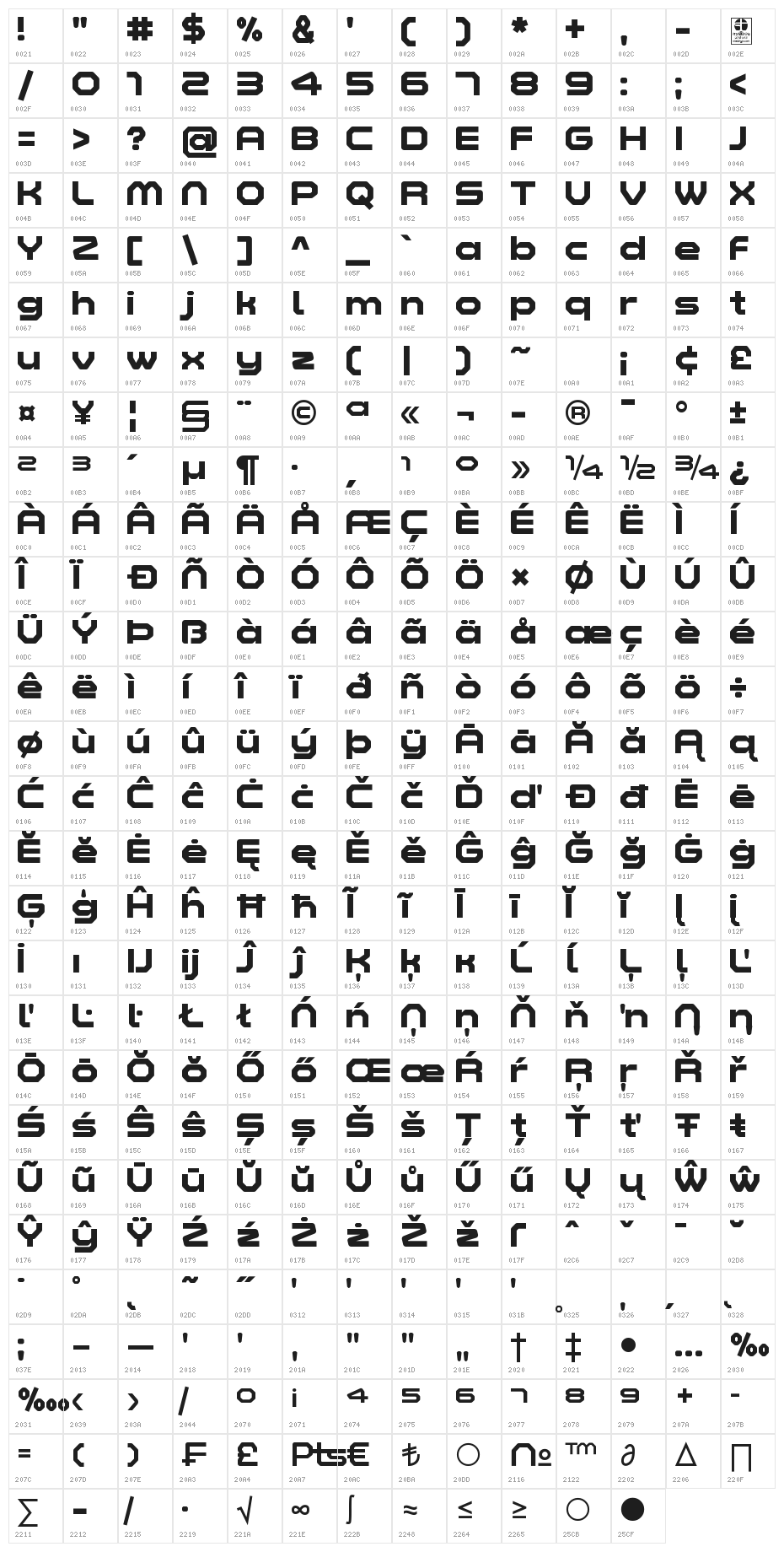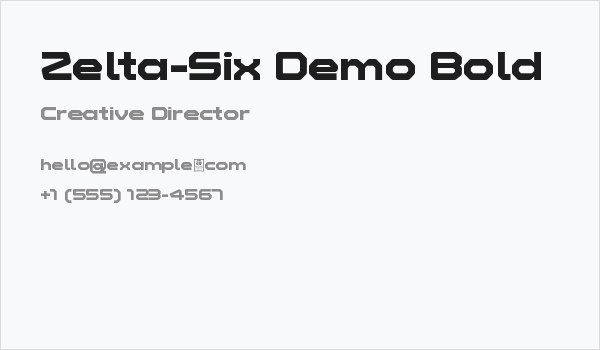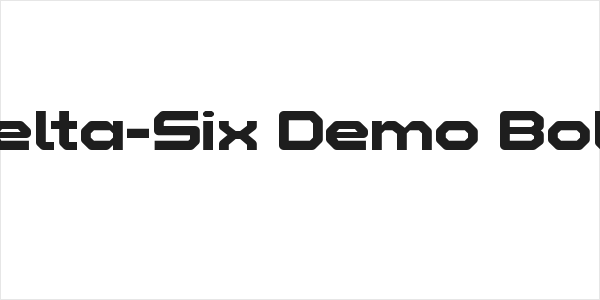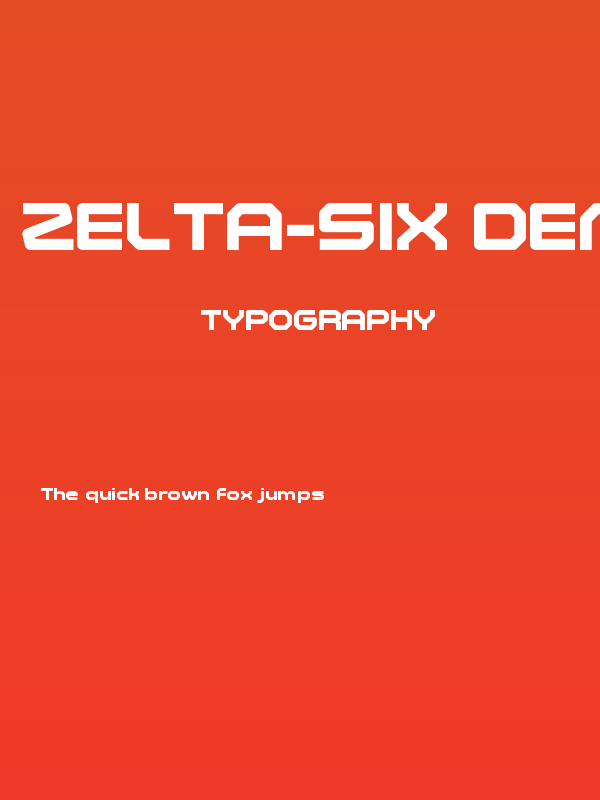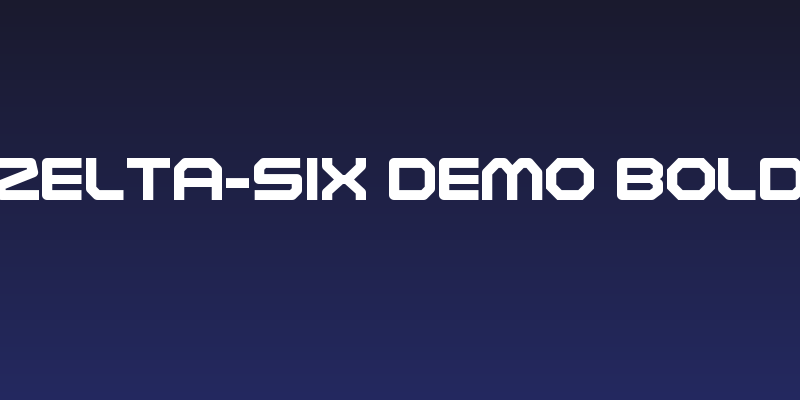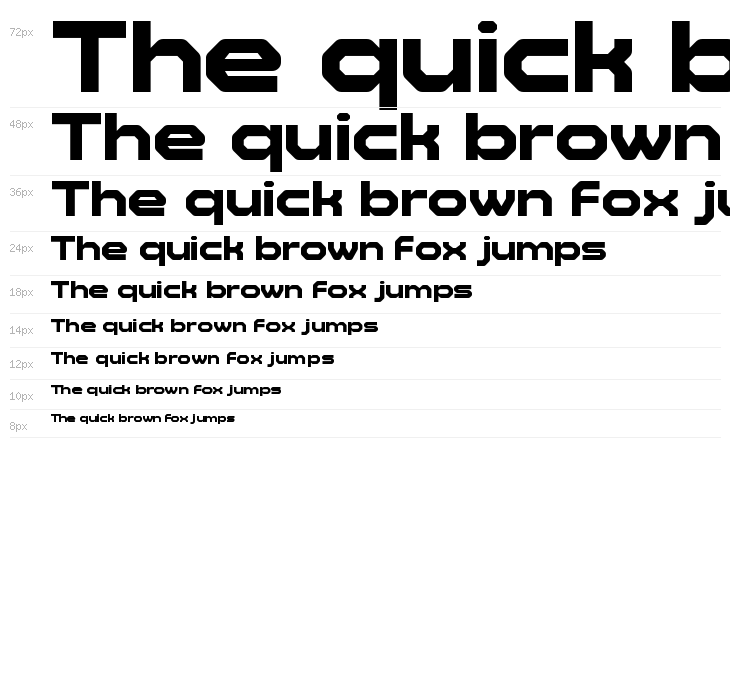
Zelta-Six Demo Bold Font
Zelta-Six Demo Bold Description
This font features a bold and geometric design with a futuristic and digital aesthetic. The characters are constructed with sharp angles and straight lines, giving it a modern and tech-inspired look. The uppercase and lowercase letters maintain a consistent style, with the lowercase being slightly more rounded. The numerals and special characters follow the same angular design, ensuring uniformity across all glyphs. This font's boldness and unique style make it stand out, ideal for projects that require a strong visual impact.
| Proposed Projects | Ideal for technology branding, video game titles, sci-fi posters, and digital interfaces. |